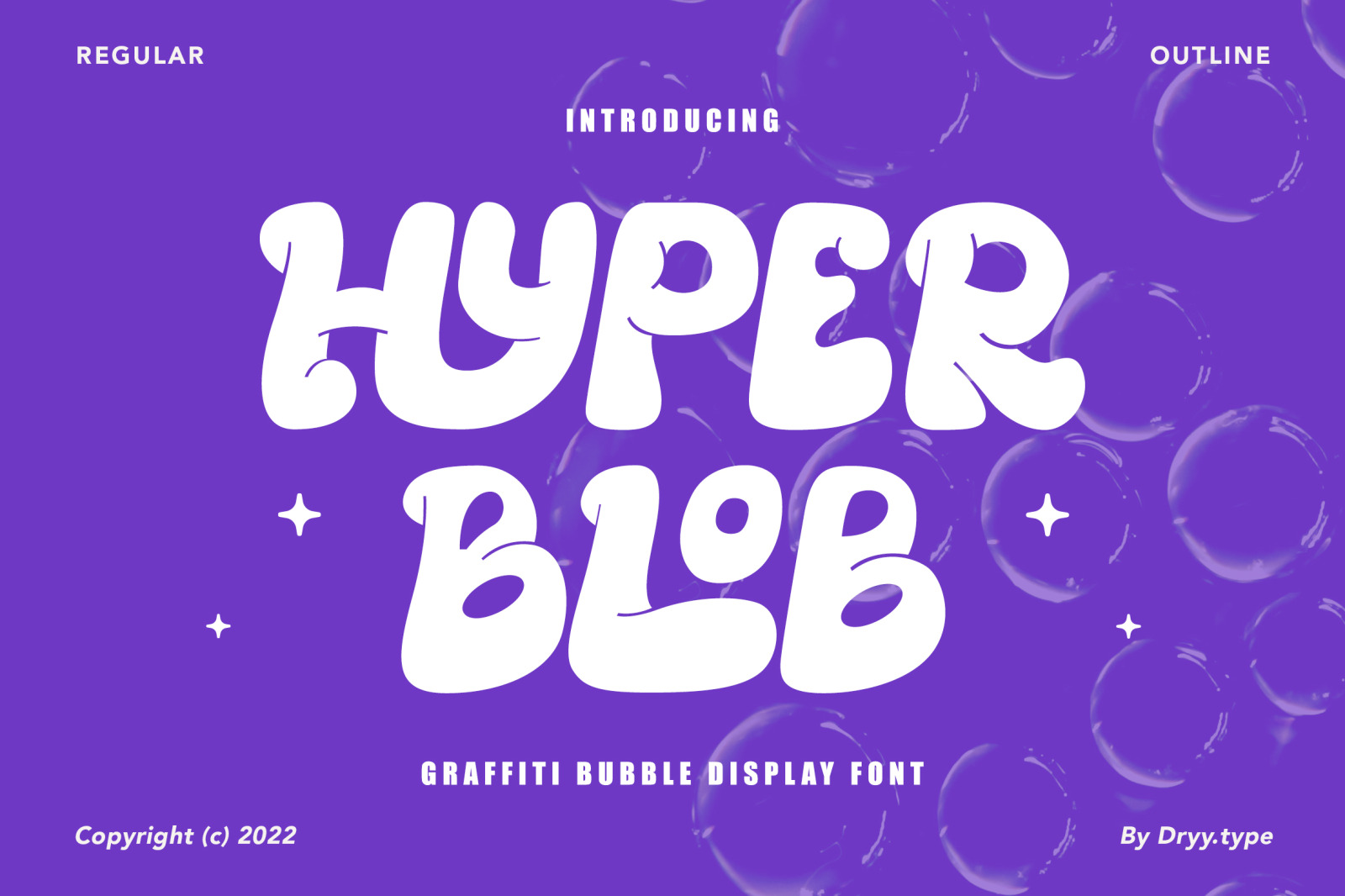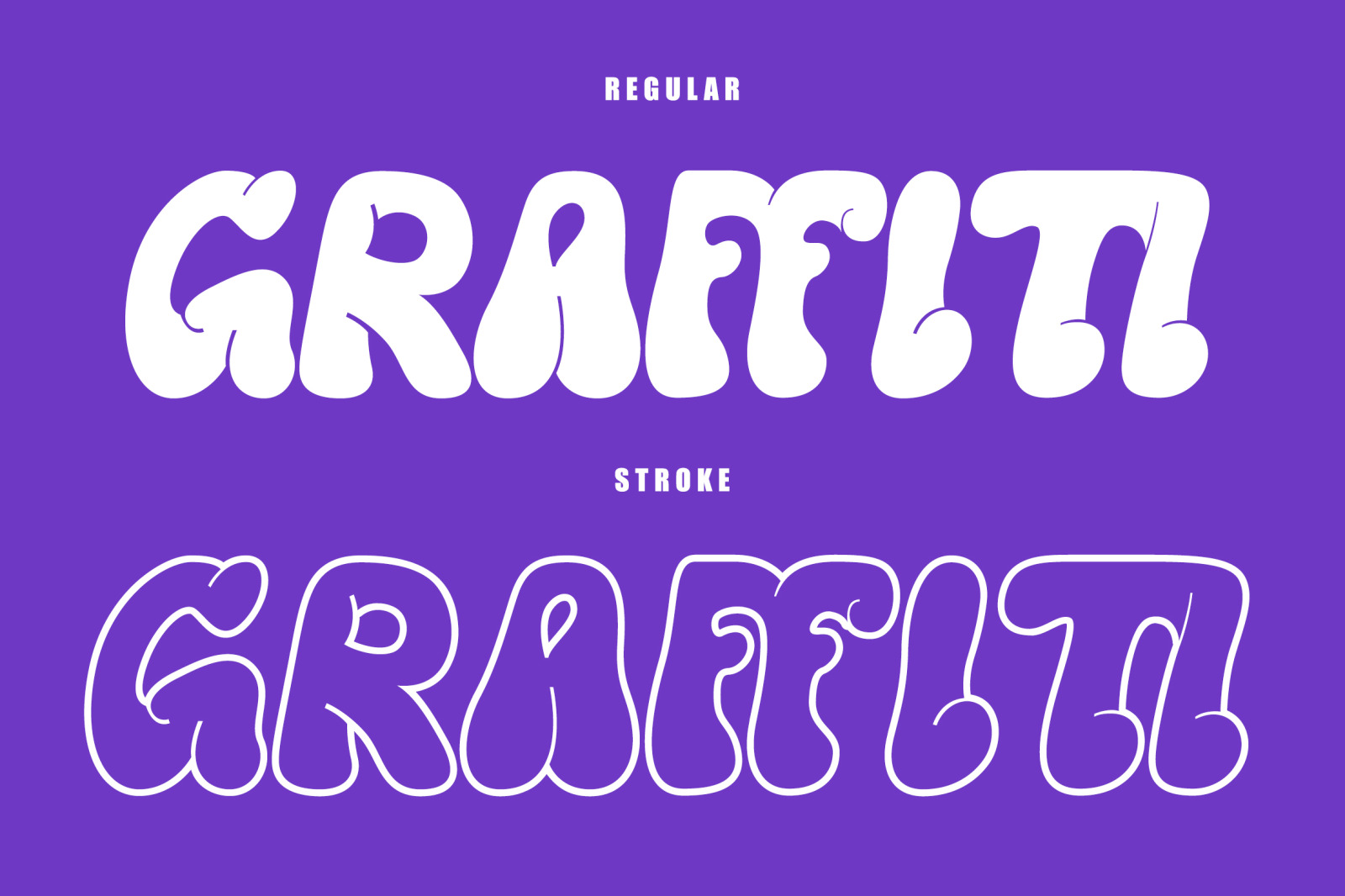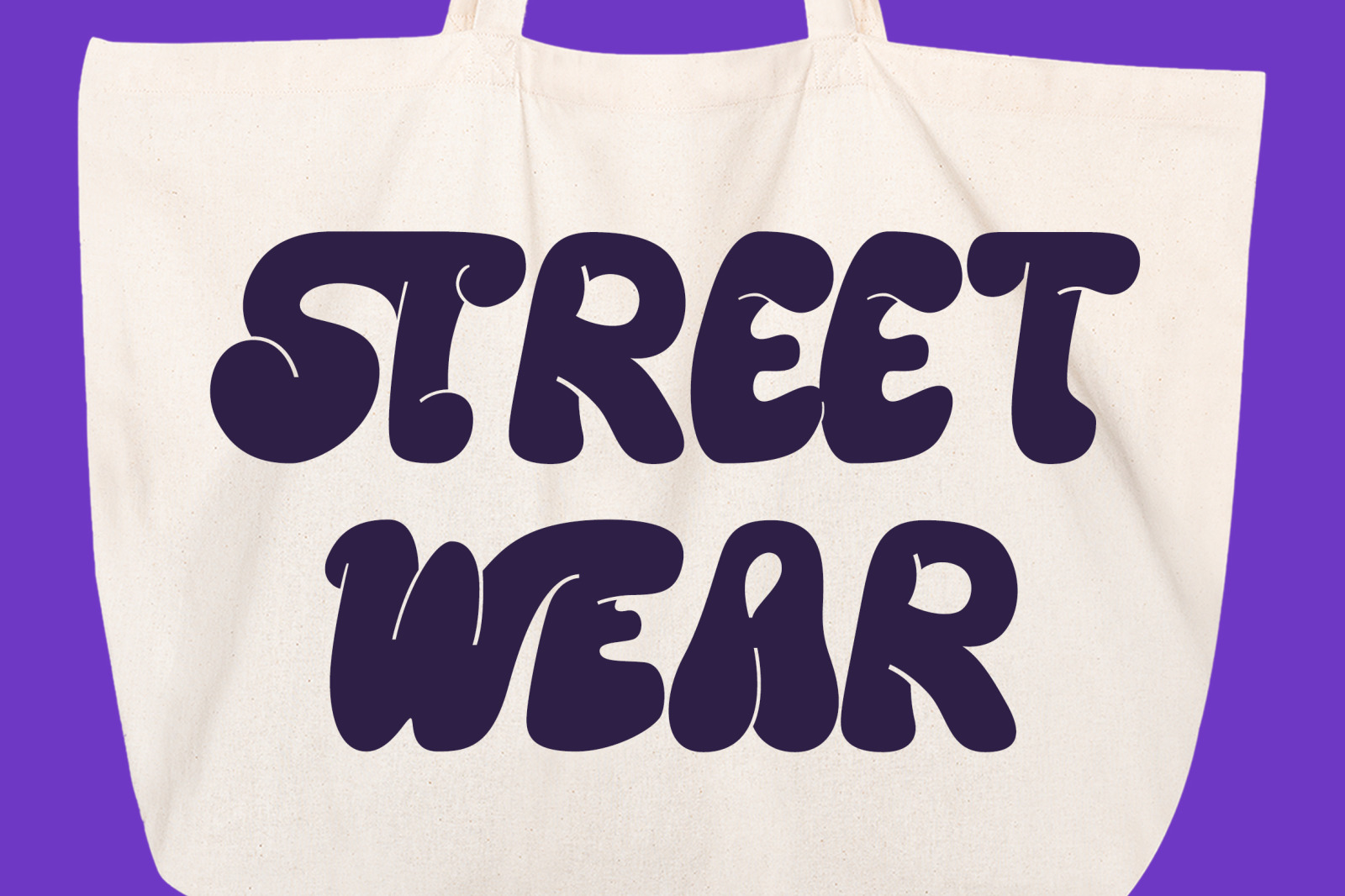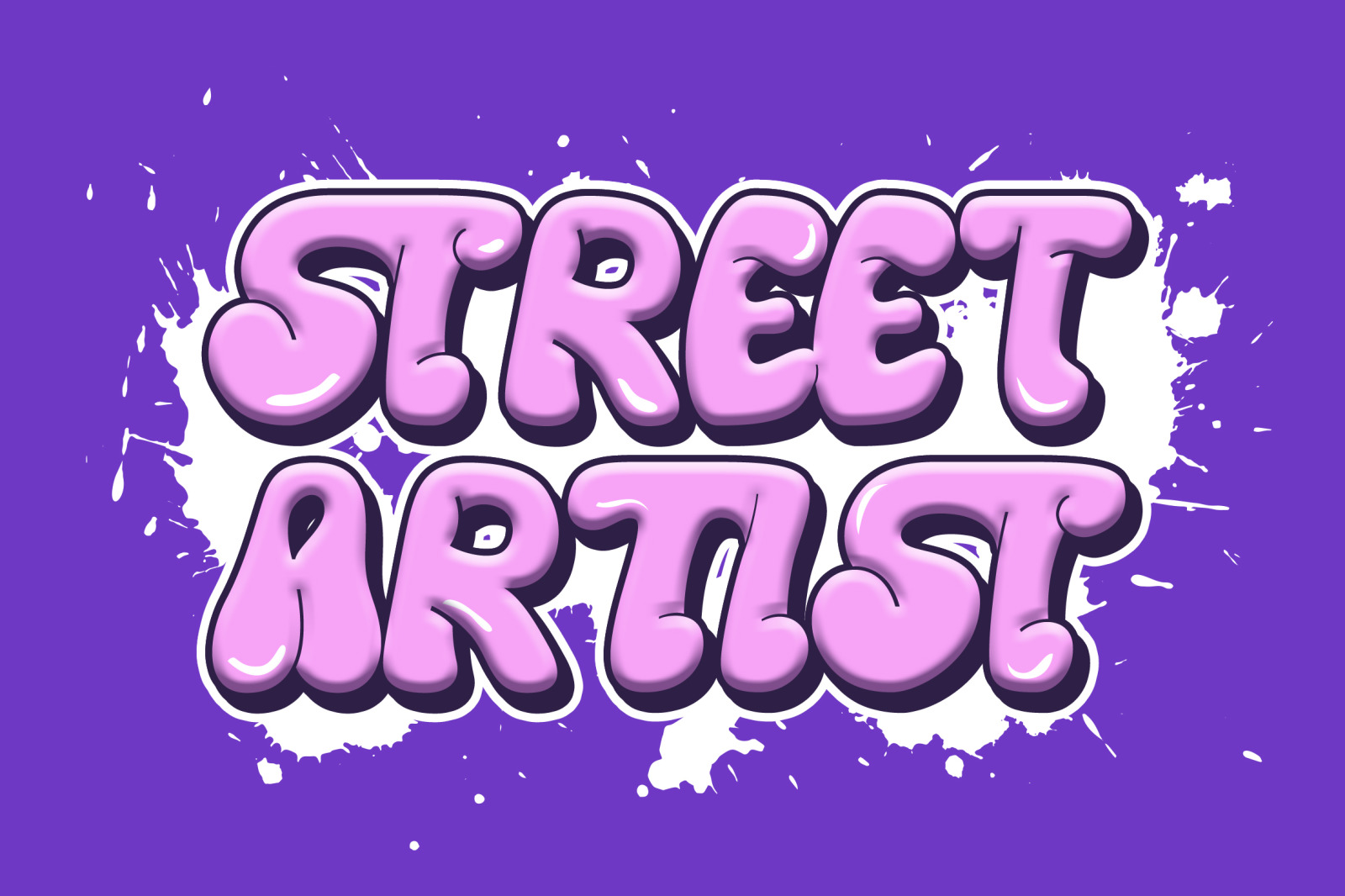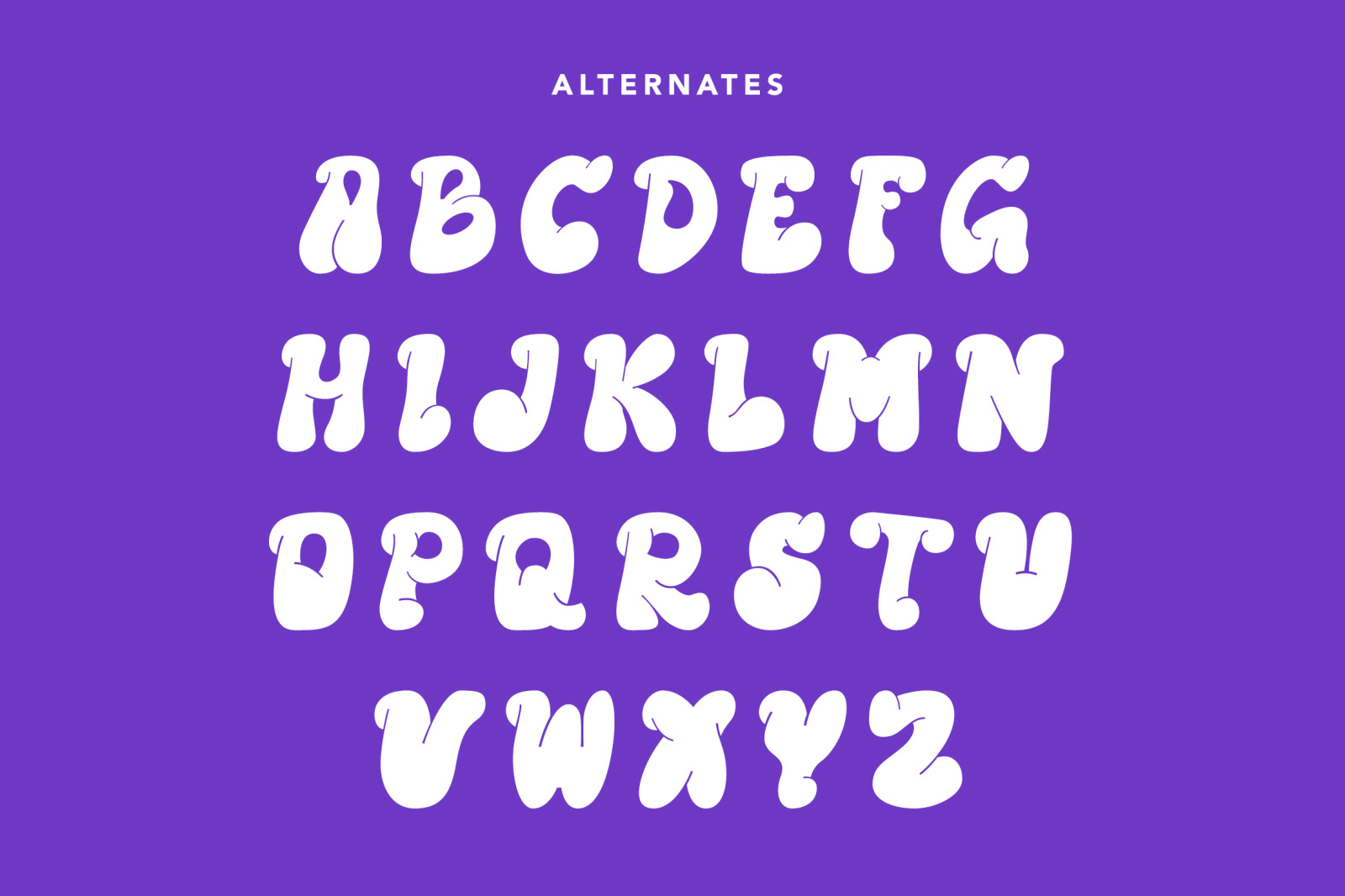
Hyper Blob - Graffiti Font
Hyper Blob FONT
A display typeface that has a bubble character and graffiti theme font to work with.
The Hyper blob font is, as the name suggests, a hypebeast and unique display font. This font I've created has been in heavy use this year & is very versatile, goes well with a variety of designs, elevating it to the highest level. Add this font to your favorite creative ideas and see the results!